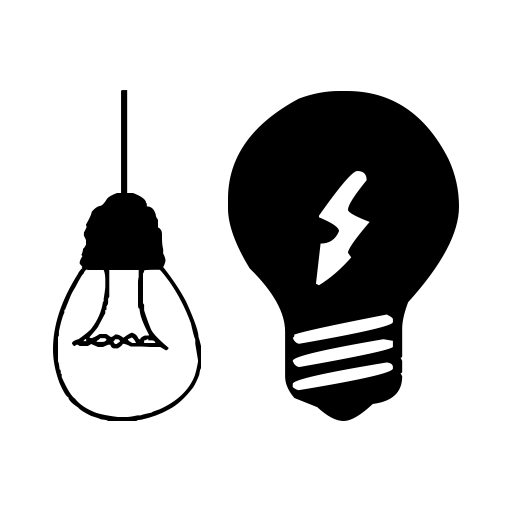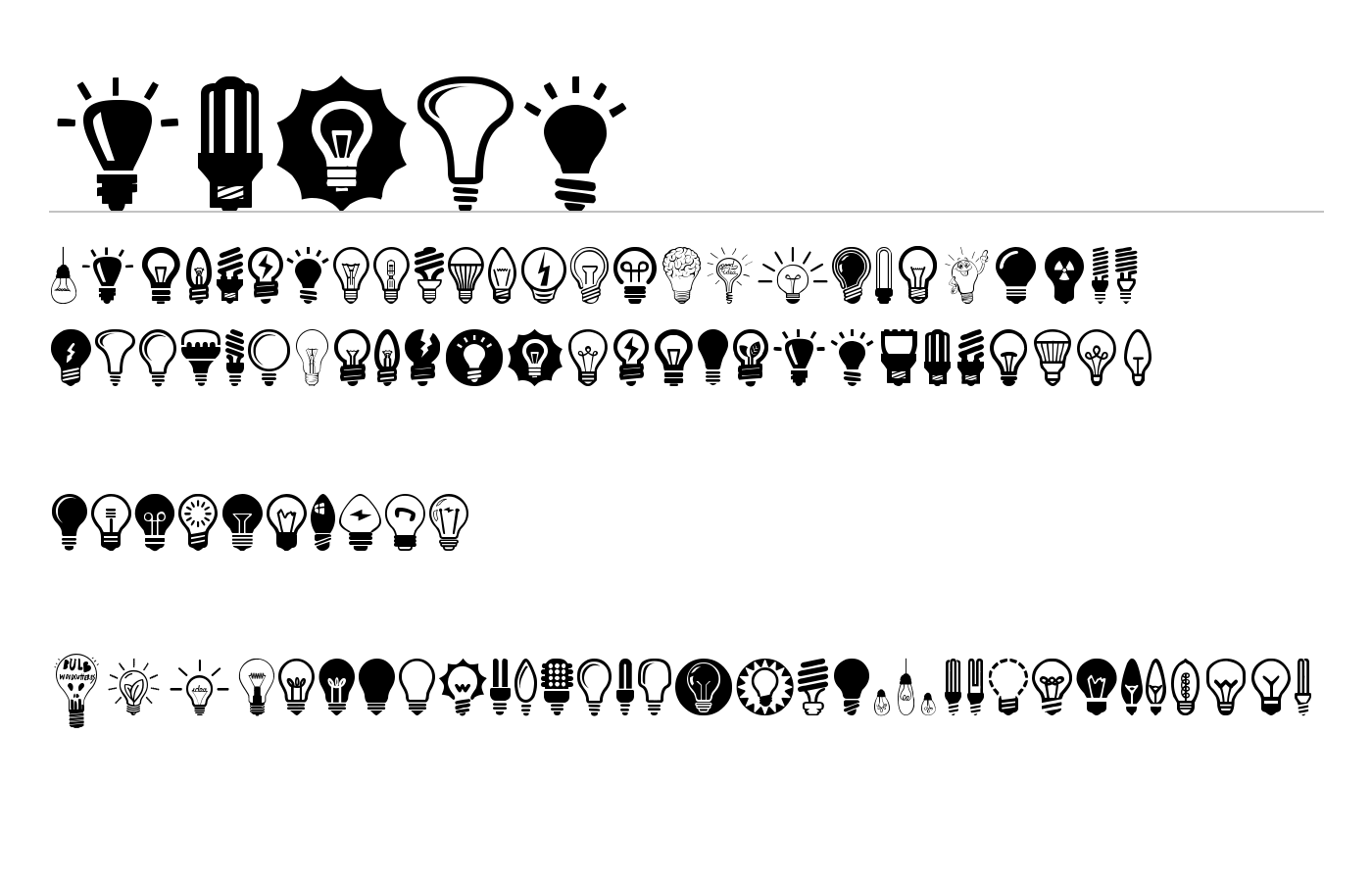
Bulbs Font is a playful and creative icon font featuring a wide variety of unique light bulb designs that capture different styles and energy concepts. Its bold, solid shapes combined with intricate line work make it perfect for use in branding, logos, and creative projects that want to convey innovation, ideas, and inspiration. This font works best in display settings where visual impact and thematic expression are key.
Bulbs Font
About Bulbs Font
| Font family | Bulbs Font |